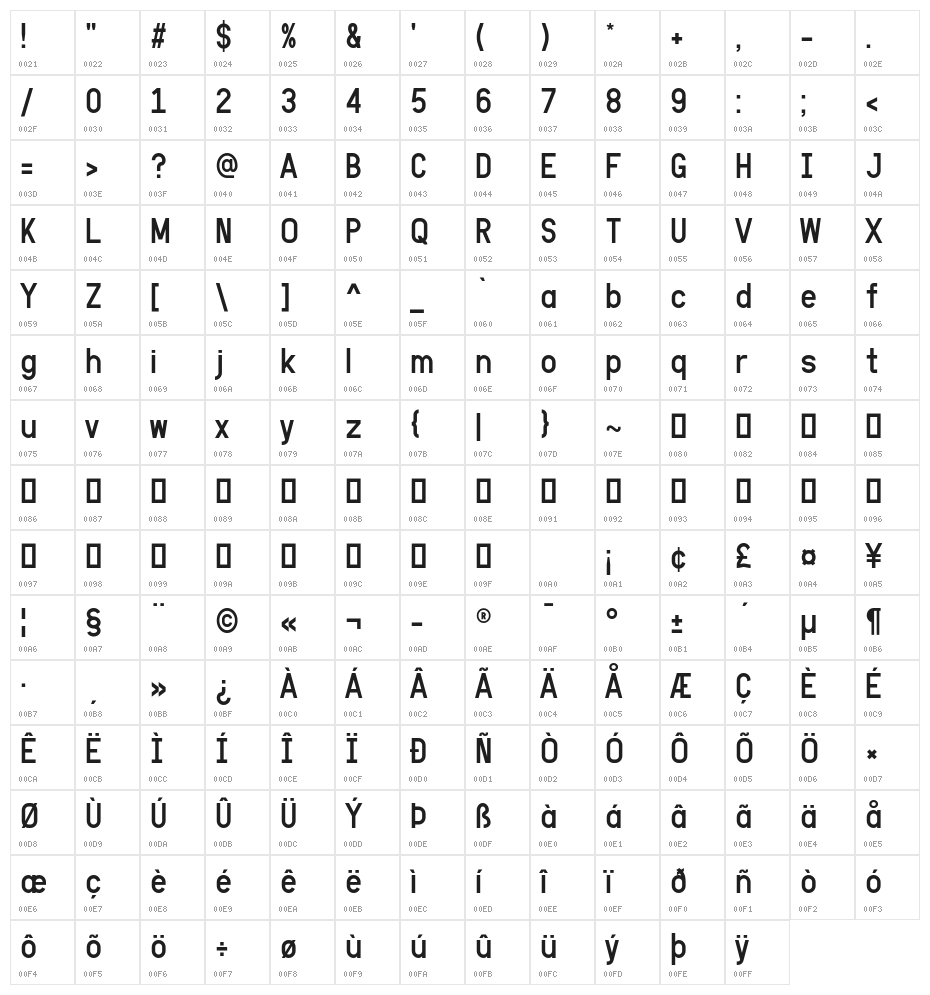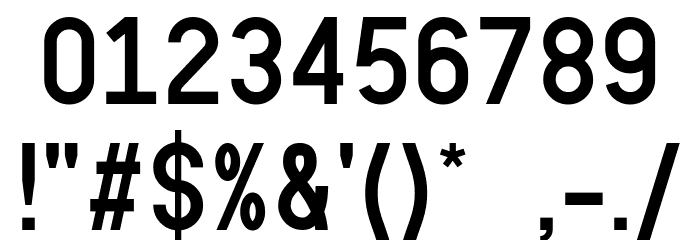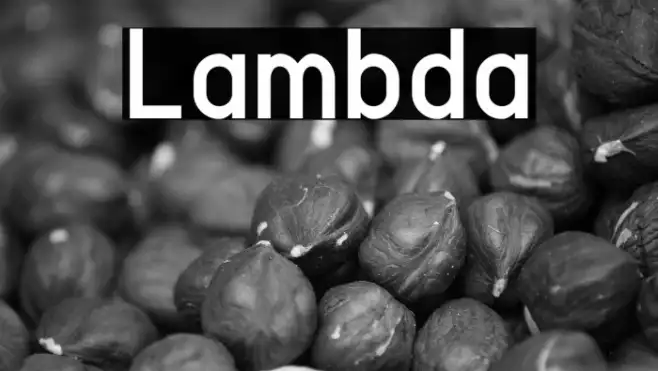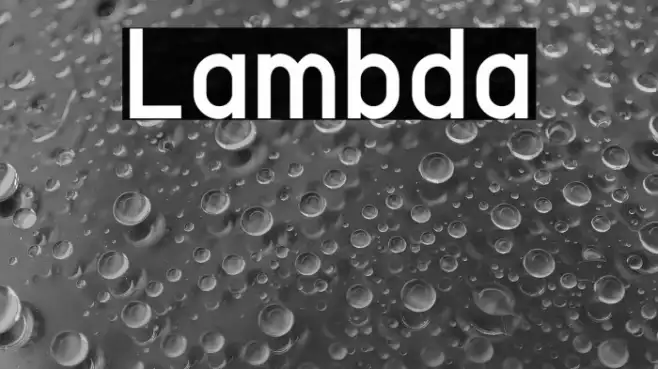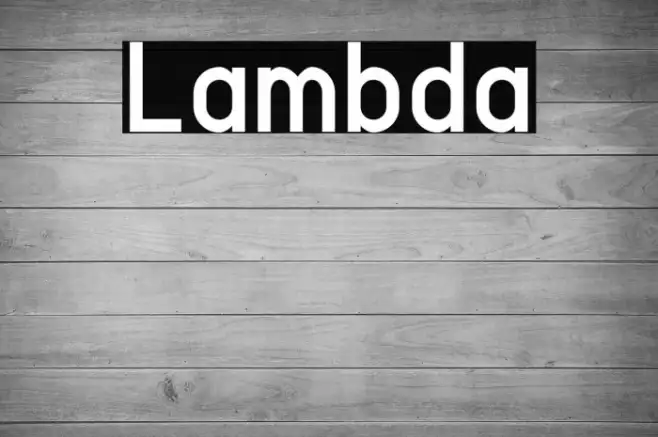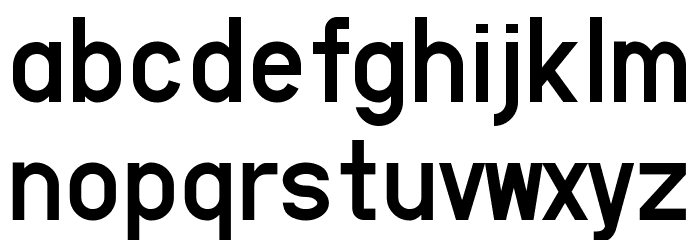
Lambda Font
Lambda Description
This font features a clean and modern sans-serif design, characterized by its geometric shapes and uniform stroke widths. The uppercase letters are bold and assertive, while the lowercase letters maintain a consistent height, offering a balanced appearance. The numerals are clear and easily distinguishable, making them suitable for various applications. Special characters are well-defined, enhancing the font's versatility. The overall style is minimalist, with a focus on readability and simplicity, making it ideal for contemporary design projects.